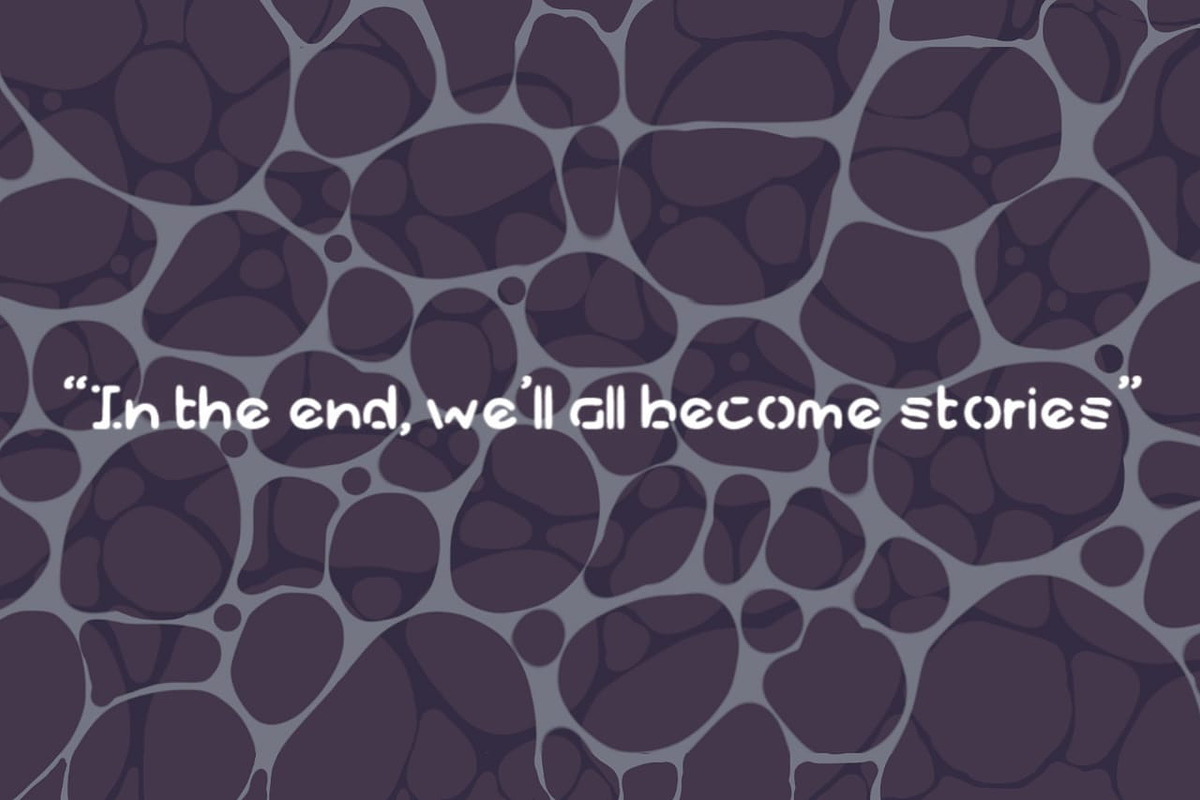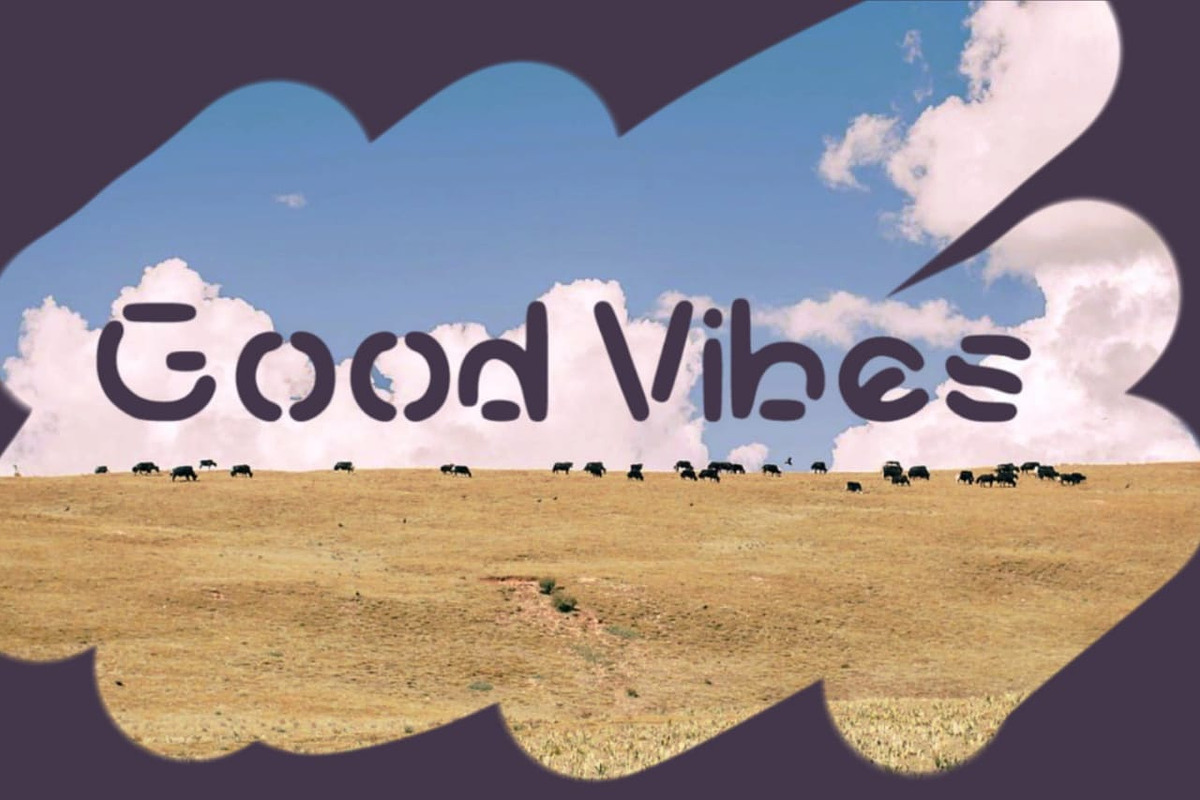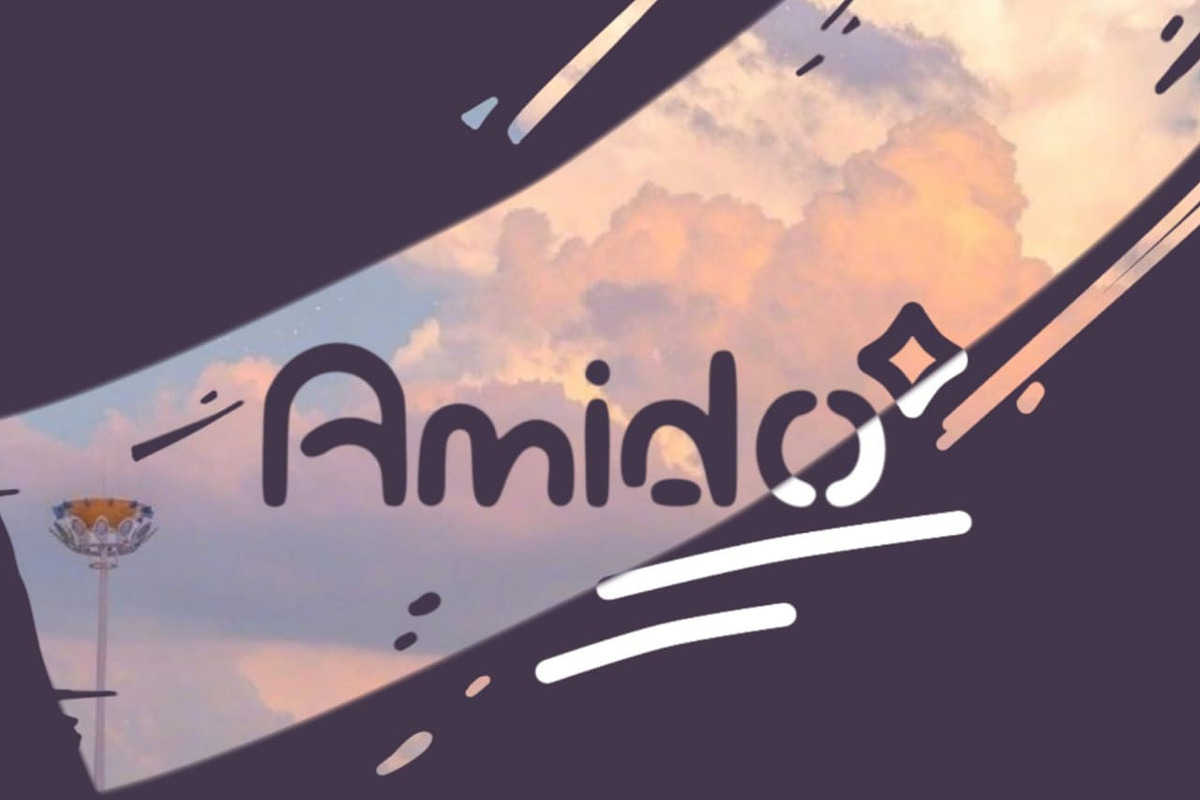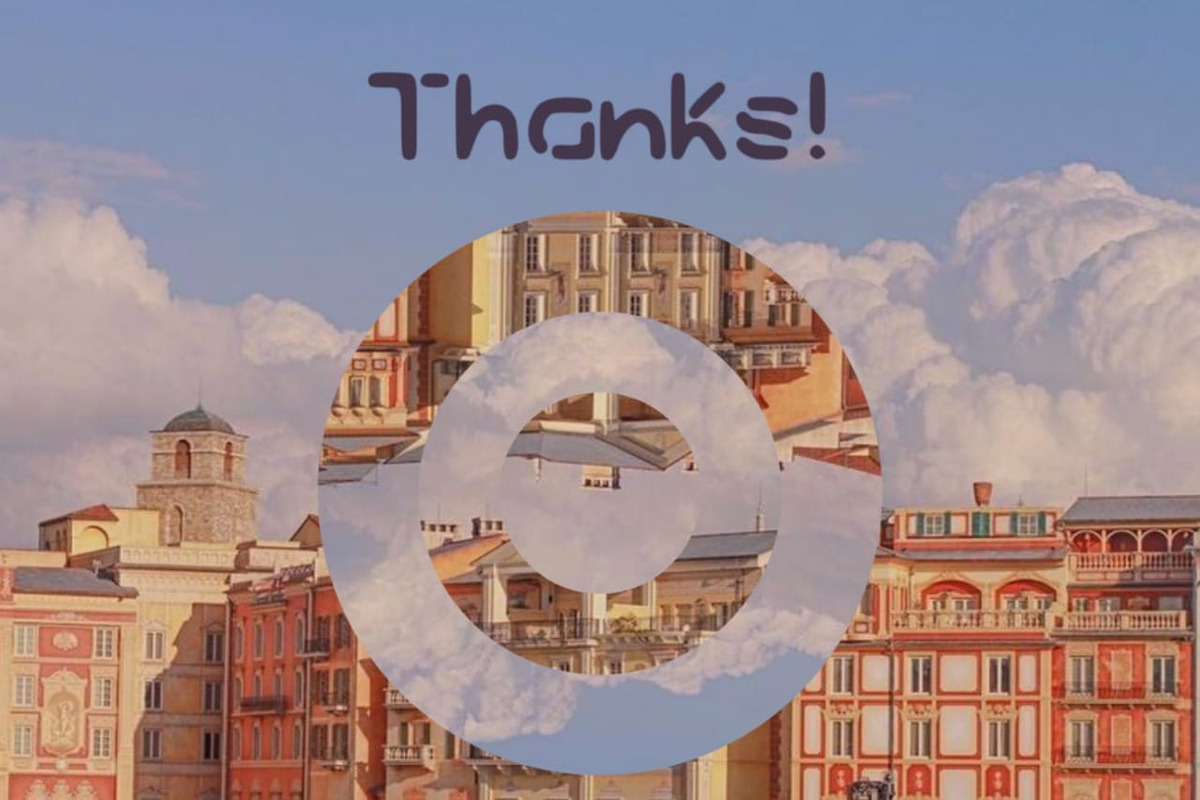
Amido
Amido is a gorgeous display typeface designed by Daily Studio. Make your design look exceptional with easy accessibility. Amido will pair beautifully with various fonts and function well with the project you are working on. Perfect for gorgeous logos and headers. This typeface includes full lowercase, uppercase, numbers, punctuation, and standard multilingual letters. With over 200 glyphs and file in OTF format.